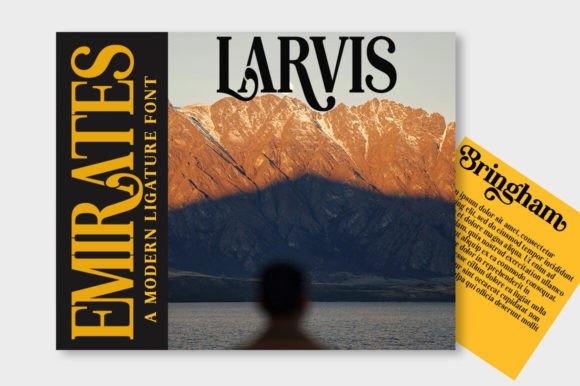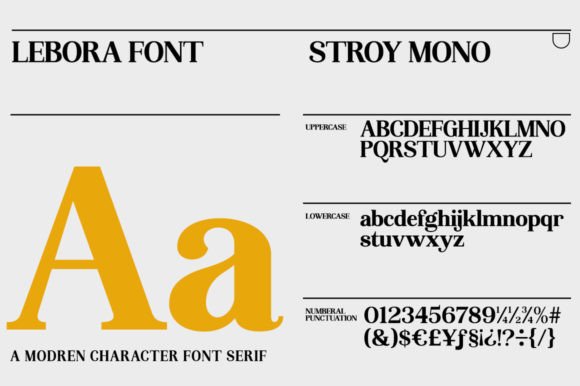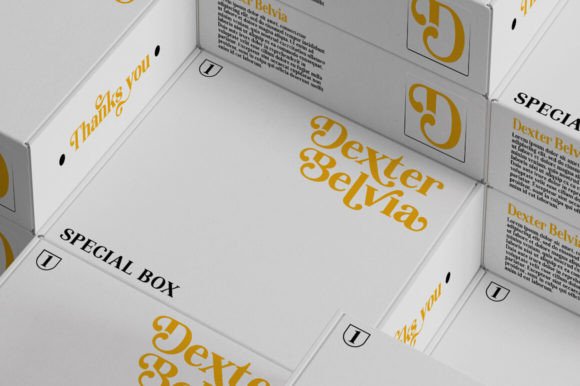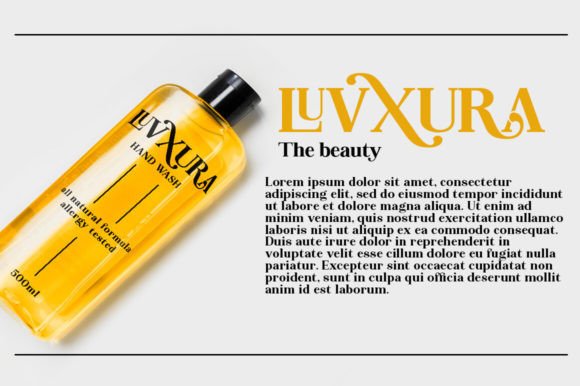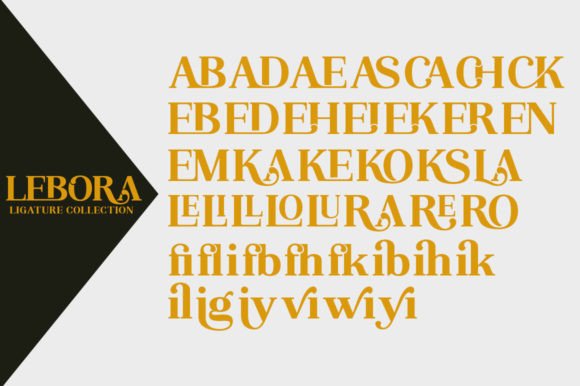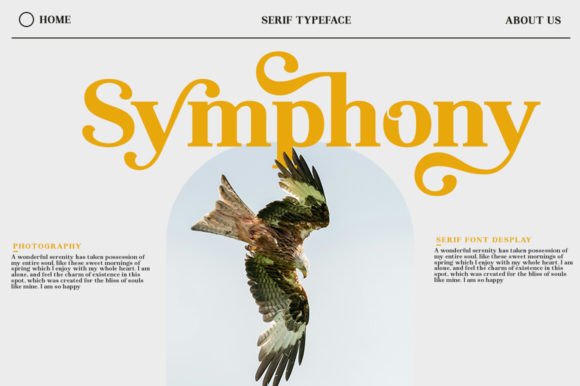
Introduction to Lebora Font
Lebora is a modern serif font with a unique binding style, high contrast and light style, perfect for feminine logo signs, fashion heads & editorial designs, branding projects, apparel branding, packaging, magazine titles, advertisements, T-shirts, postcards and many more.
Key Features of Lebora Font